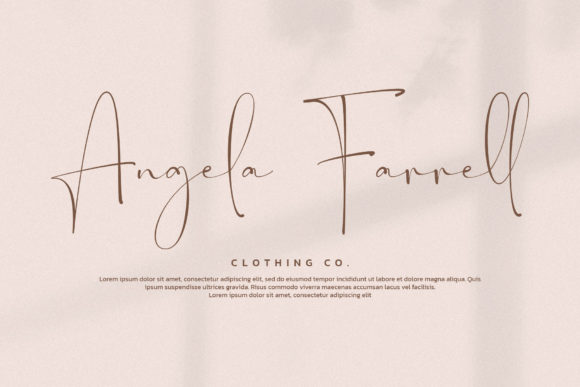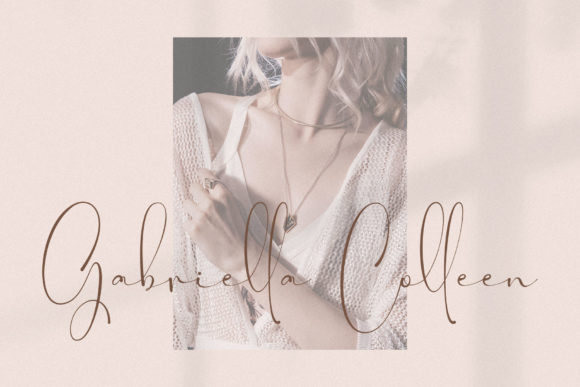
Maastricht Font
db-ku.com - Script & Handwritten -- Maastricht is a beautiful and flexible handwritten font. It is suitable for various design needs such as business cards, wedding invitations, banner ads and various other creations.